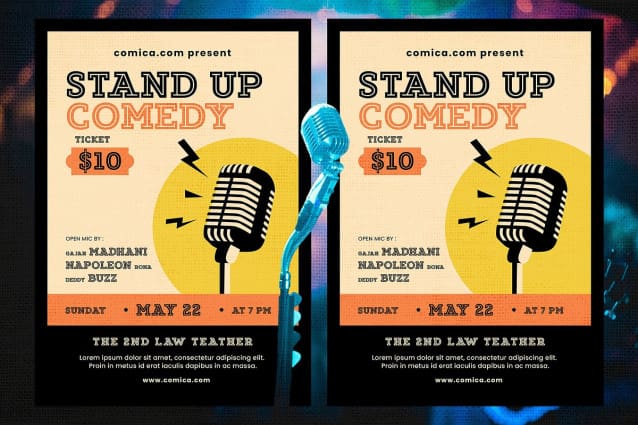
Tonder Slab Font
Tonder Slab Font, is Inline Slab Serif Font from Drizy studio. Offering all the basic styles you will need for a successful project.